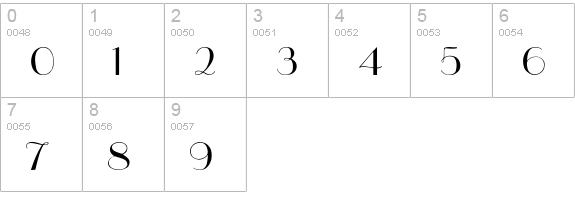
Downside Font Details
Downside font is a modern and stylish typeface that exudes a sense of sophistication and elegance. With its sleek lines and unique design, this font is perfect for a wide range of artistic projects, from branding to editorial design. The sharp angles and clean curves of Downside font make it stand out from the crowd, adding a touch of contemporary flair to any design. The best part? Downside font is completely free to download at FontsMarket.com. Simply visit the website and grab this stunning font to elevate your projects to the next level. Whether you're working on a logo, website design, or print materials, Downside font is sure to make a statement and leave a lasting impression. Don't miss out on this fantastic opportunity to add a touch of sophistication to your designs with the Downside font - get it now and let your creativity shine!